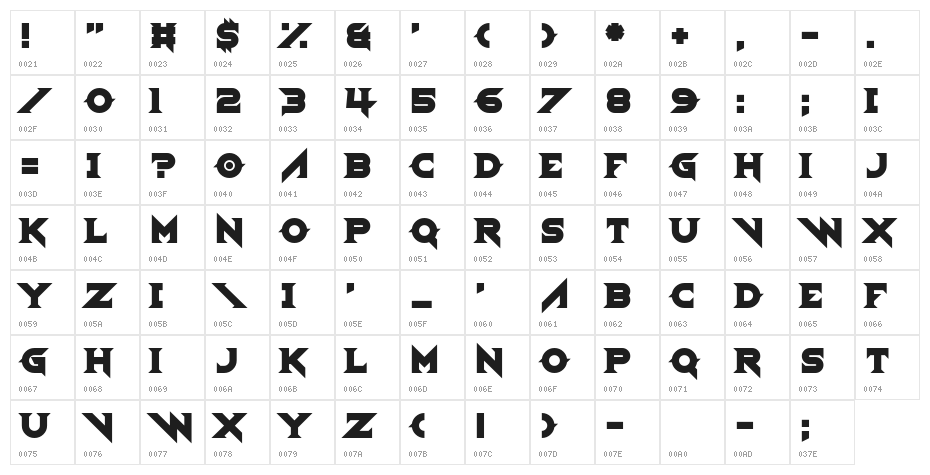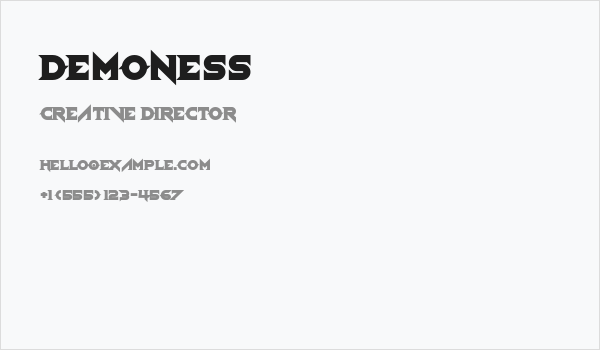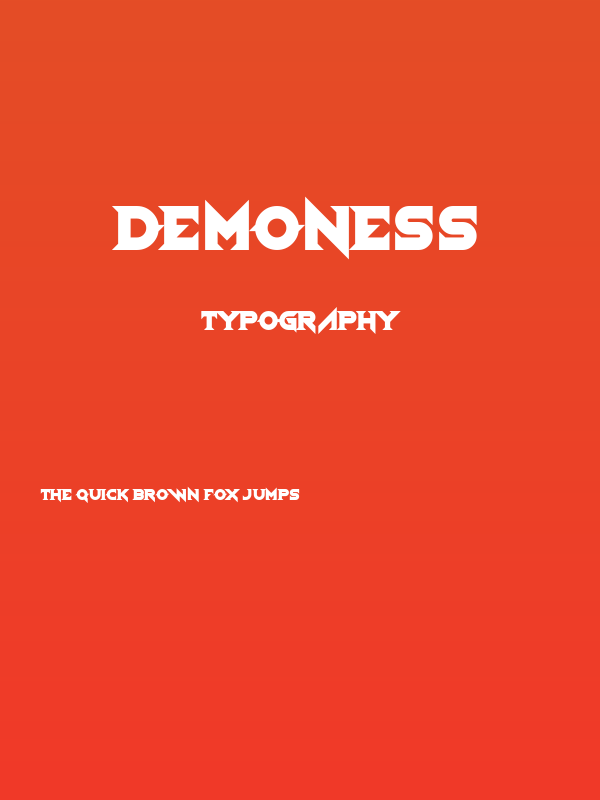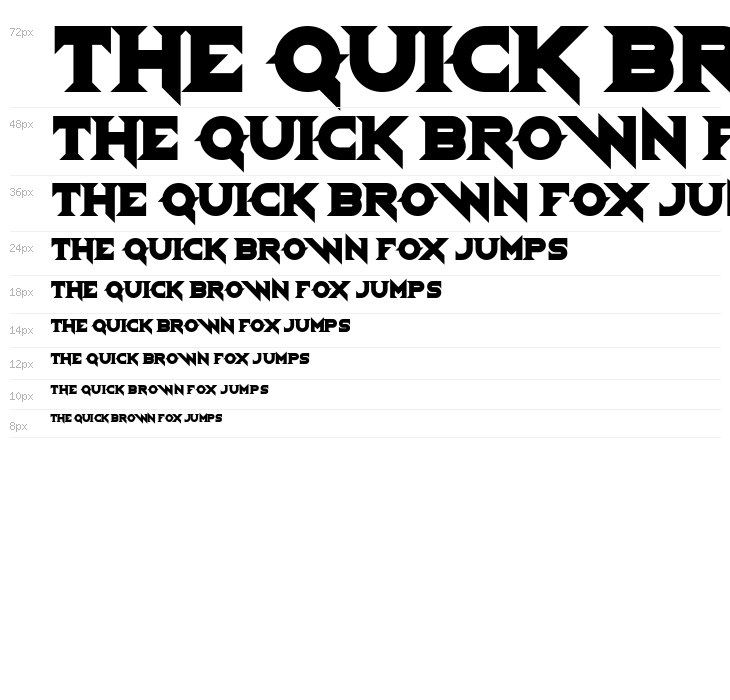
Demoness Font
Demoness Description
This font features a bold and aggressive style, characterized by sharp angles and pointed edges that give it a fierce and dynamic appearance. The uppercase letters are designed with a strong geometric influence, creating a sense of power and intensity. The lowercase letters maintain the same boldness, ensuring consistency across the typeface. Numbers and special characters are equally striking, with unique shapes that complement the overall aesthetic. This font is ideal for projects that require a strong visual impact, such as branding for edgy or alternative products, posters for music events, or any design that aims to capture attention with its bold and daring look.
| Use Case | Logos, Headlines |
| Proposed Projects | Ideal for edgy branding, music event posters, and attention-grabbing designs. |